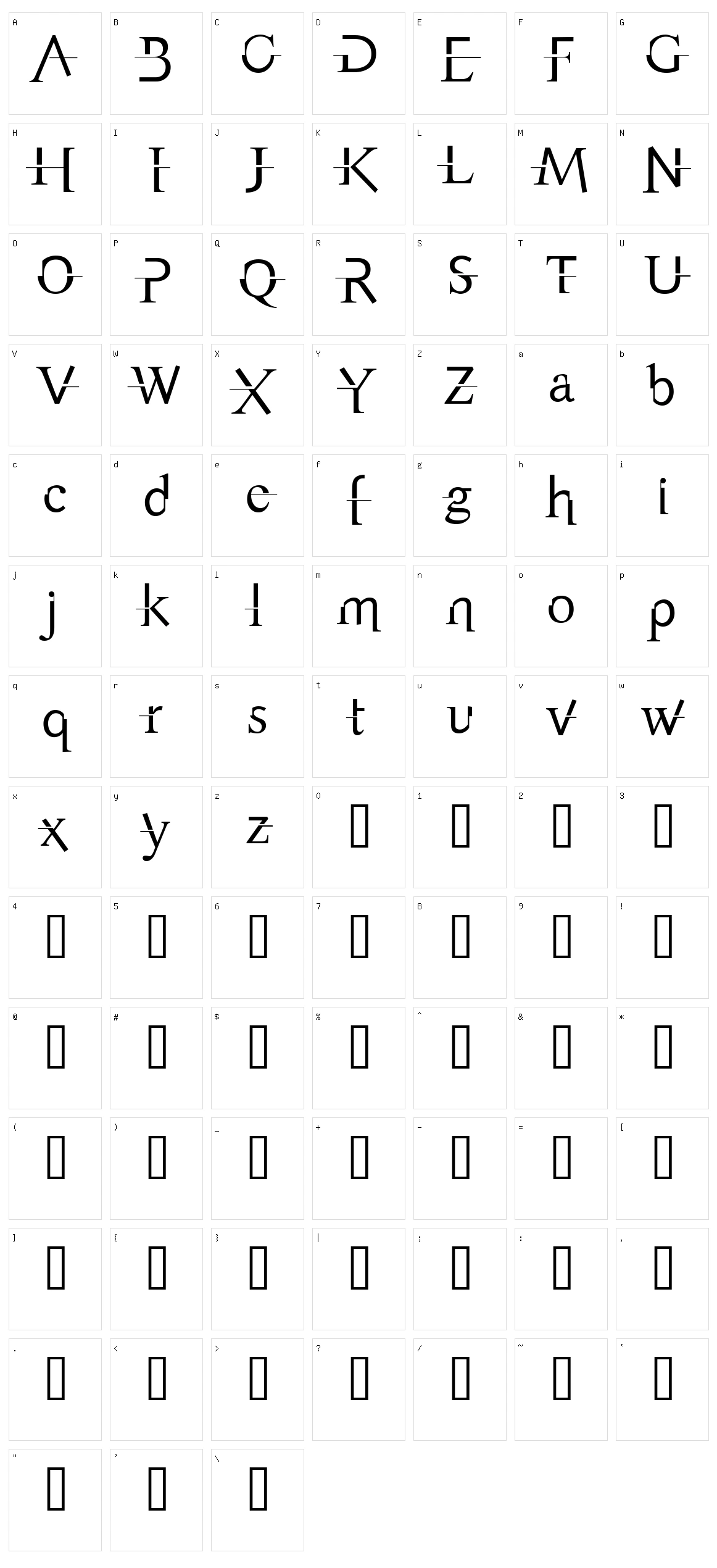
The free font Appendix is carefully designed by Harry Oklebef, showcasing a thoughtful balance of creativity and usability and falls under the Distorted font style. When you download the ZIP file, it contains only 9.56 KB of font files, making it lightweight and quick to download. Please review the license details below to understand permitted usage and distribution rights. If license information is not available, we recommend using this font for personal projects only or contacting the author directly for commercial usage permissions.